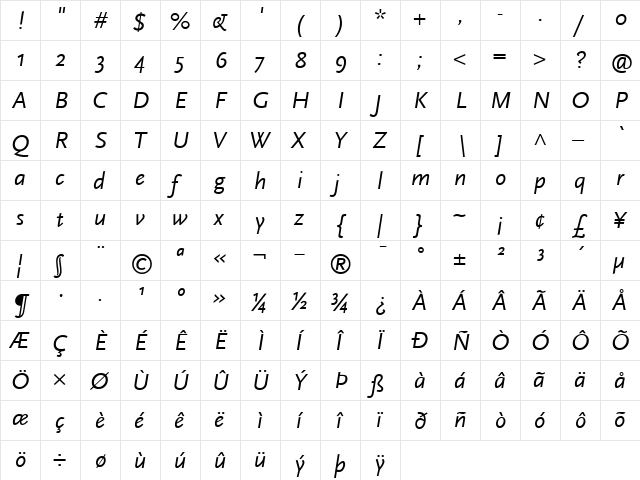
ScalaSans RegularItalic
ScalaSans is a composed and adaptable typeface that performs quietly and consistently across a wide range of design contexts. Its italic angle brings a sense of urgency and motion to the letterforms.
Pro Tip: Use ScalaSans for emphasis, pull quotes, and subheadings where its slanted energy can add rhythm to the layout.